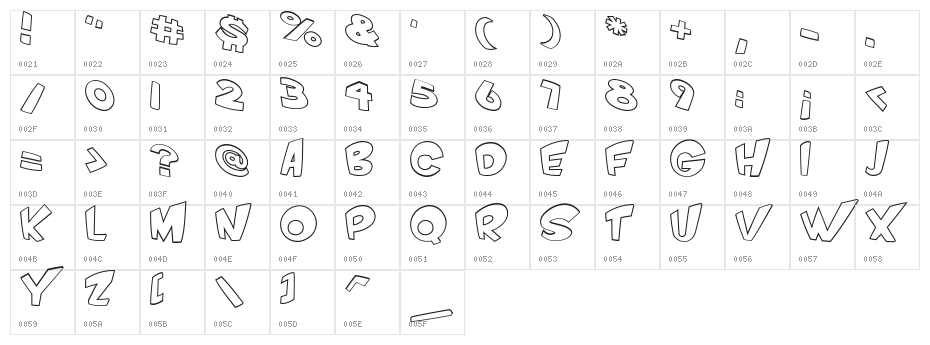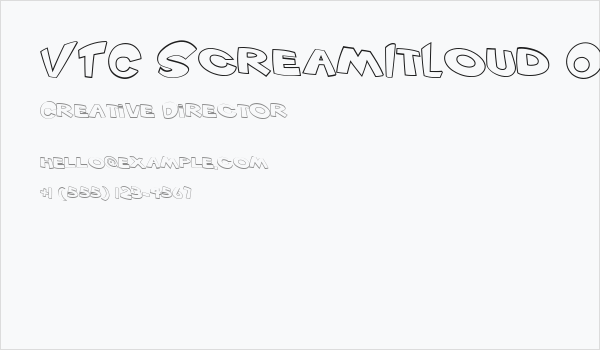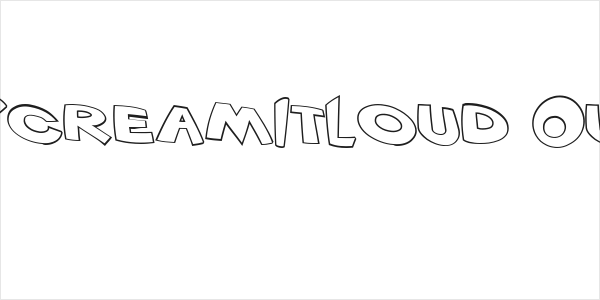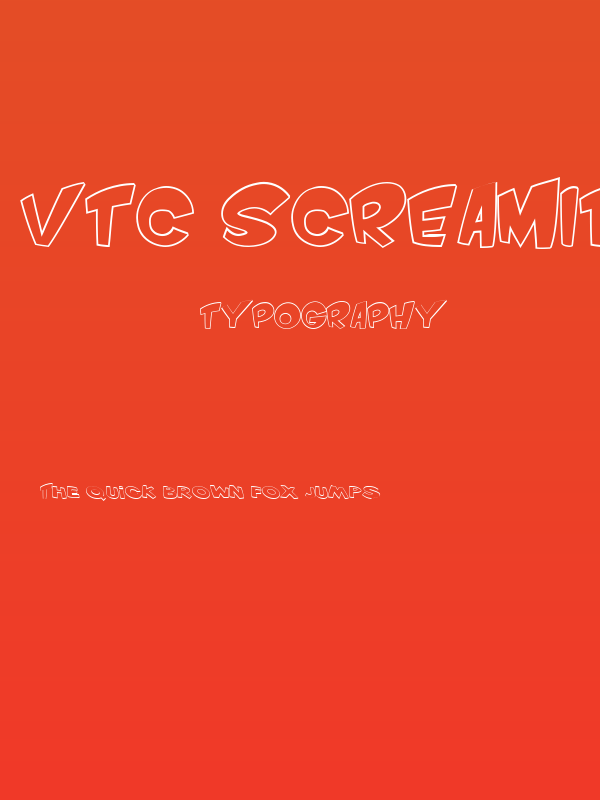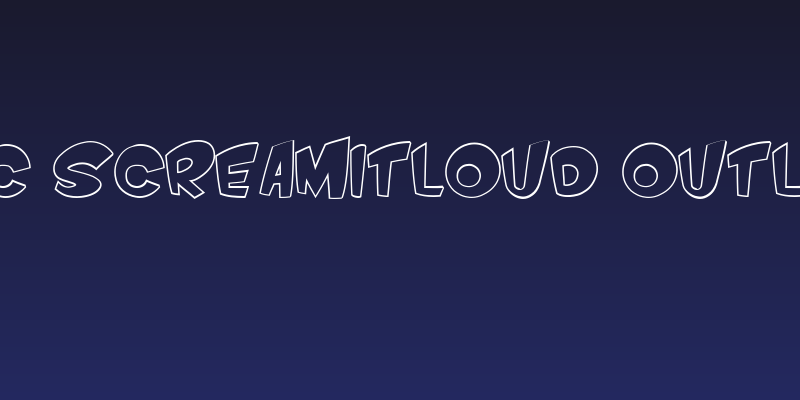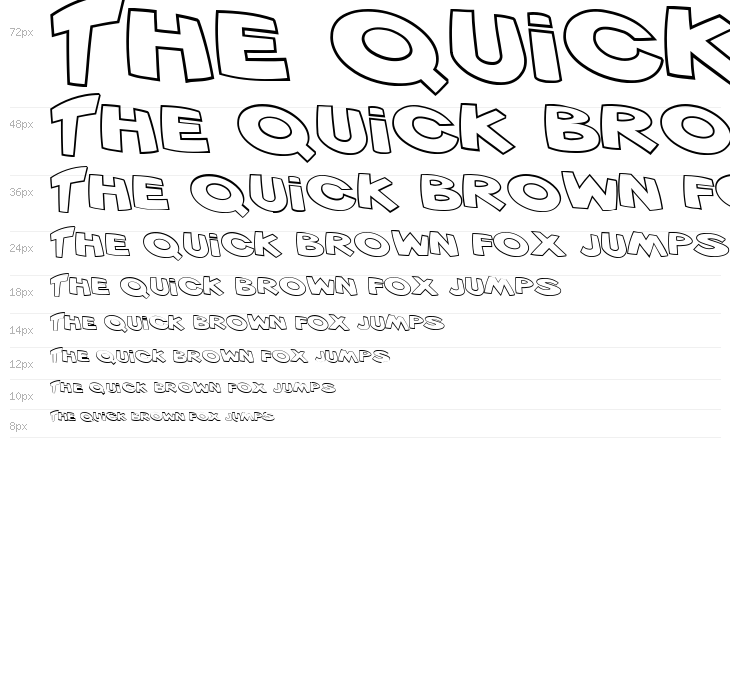
VTC ScreamItLoud Outline Font
VTC ScreamItLoud Outline Description
This font features bold, playful outlines with a cartoonish and energetic style. The characters are uppercase and lowercase with a consistent, exaggerated thickness that gives them a lively and dynamic appearance. The outlines are thick and uniform, creating a sense of fun and movement. The numbers and special characters follow the same playful design, making the font suitable for creative and informal contexts. Its unique style captures attention and adds a whimsical touch to any design.
| Overall Style | Playful, Cartoonish, Energetic |
| Proposed Projects | Ideal for children's books, comic strips, party invitations, and playful branding projects. |